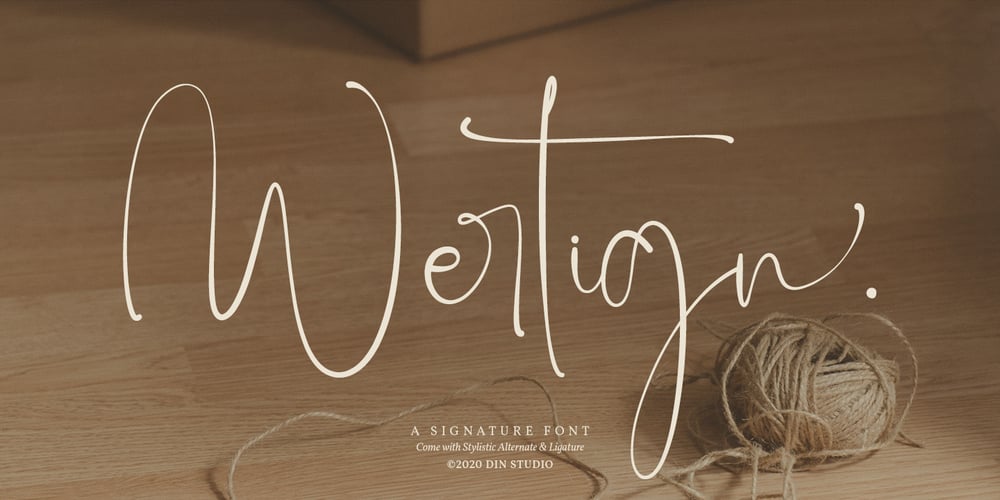
Wertign Font Family was designed by Donis Miftahudin and published by Din Studio. Wertign contains 1 styles and family package options. Hi, Everyone! If you’re looking for a gorgeous font to attract your audiences or customers then we’ve got the font for you!Introducing Wertign – A Signature FontThis handmade font typeface with elegant style looks very interesting for loads of different projects and promotions. It is perfect to be used on your website, for your social media branding, Pinterest banners, printed products, and more!Features: Beautiful Ligatures Stylistic Set Swashes Multilingual Support PUA Encoded Numerals and Punctuation Thank you for downloading premium fonts from Din Studio